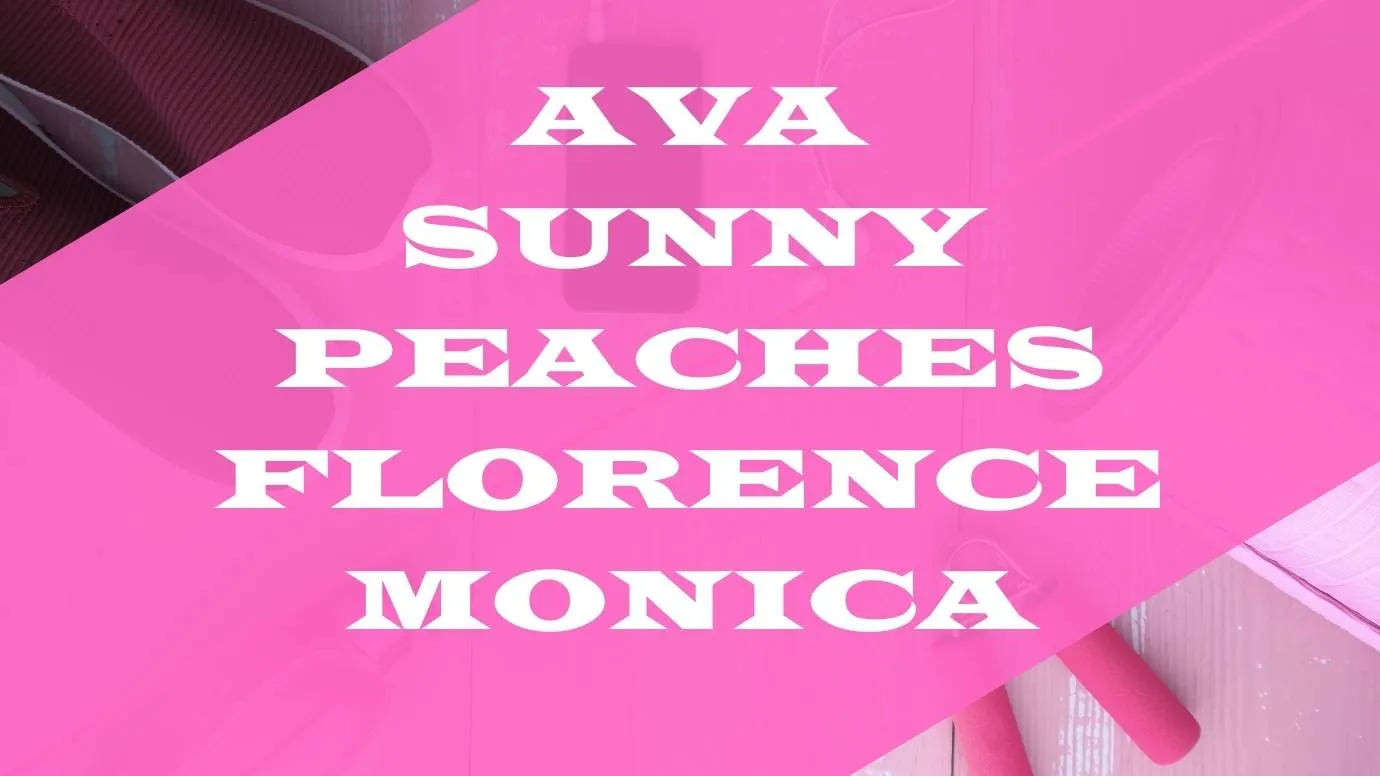
The Gold’s Gym font is a logo typeface that was designed specifically for its brand. This typeface is a fitness center headquarters located in Dallas Texas. This font is simple and clean, with sharp edges and thick strokes that give it a strong and powerful look. It is perfect for any fitness or sports-themed project.
The Golds Gym font is a unique and easily recognizable font that is often used by the gym chain in its branding. The font is known for its thick, blocky letters and has a strong, muscular feel to it. A similar and pairing typeface to this texture is Ghostbusters Font. The Golds Gym font is perfect for fitness and workout-themed designs, as well as any design that needs a strong, bold font.
The Golds Gym font can be used for a variety of purposes, including but not limited to Branding and marketing materials for the Golds Gym brand, Fitness, and workout-themed designs, and Any design that needs a strong, bold font.
You can also use this typeface for posters and banners and logos and graphic design and many more.
Designer of Gold’s Gym Font
This unique logo style of font is designed by a famous graphic designer, who is known, as Achaz Reuss.
This font family includes a single style, this regular style consists of glyphs, digits, capital letters, small letters, punctuation, a set of characters, and a wide range of language support.
| Name | Gold’s Gym Font |
| Style | Logo |
| Designer | Achaz Reuss |
What font is Gold’s Gym font?
This is a logo typeface that was designed specifically for the Gold’s Gym brand. The Gold’s Gym is a fitness center headquarters located in Dallas Texas. This font is simple and clean, with sharp edges and thick strokes.
What font goes with Gold’s Gym Font?
There are so many fonts to get a match with this font but, the most paired font is to this typeface is Stranger Things Font.
Who is the designer of Gold’s Gym typeface?
This unique logo style of font is designed by a famous graphic designer, who is known, as Achaz Reuss.